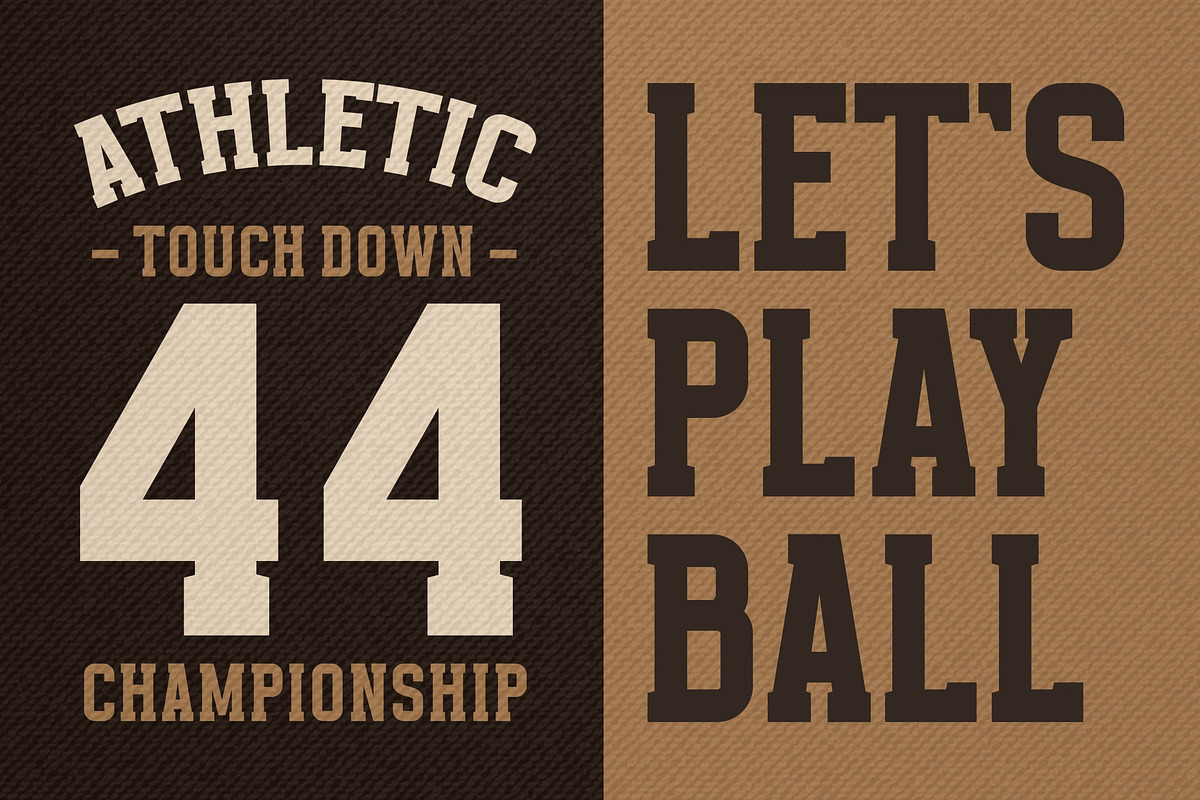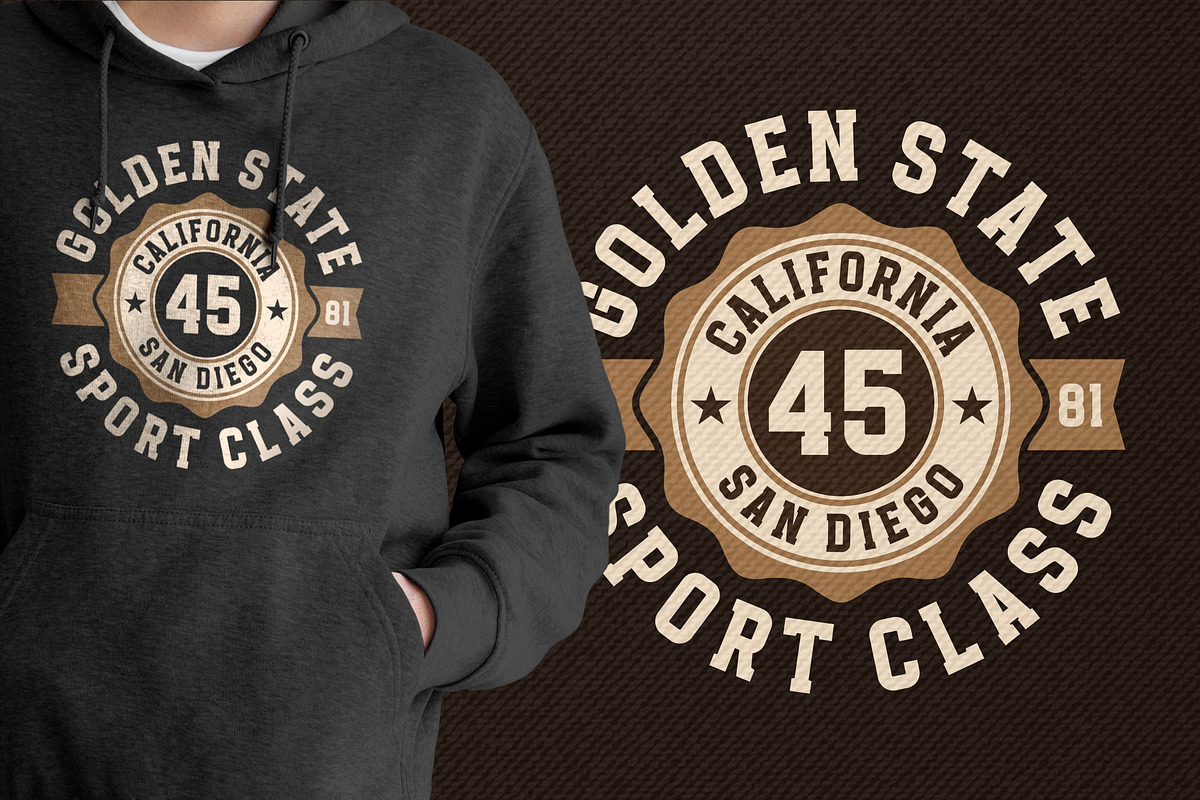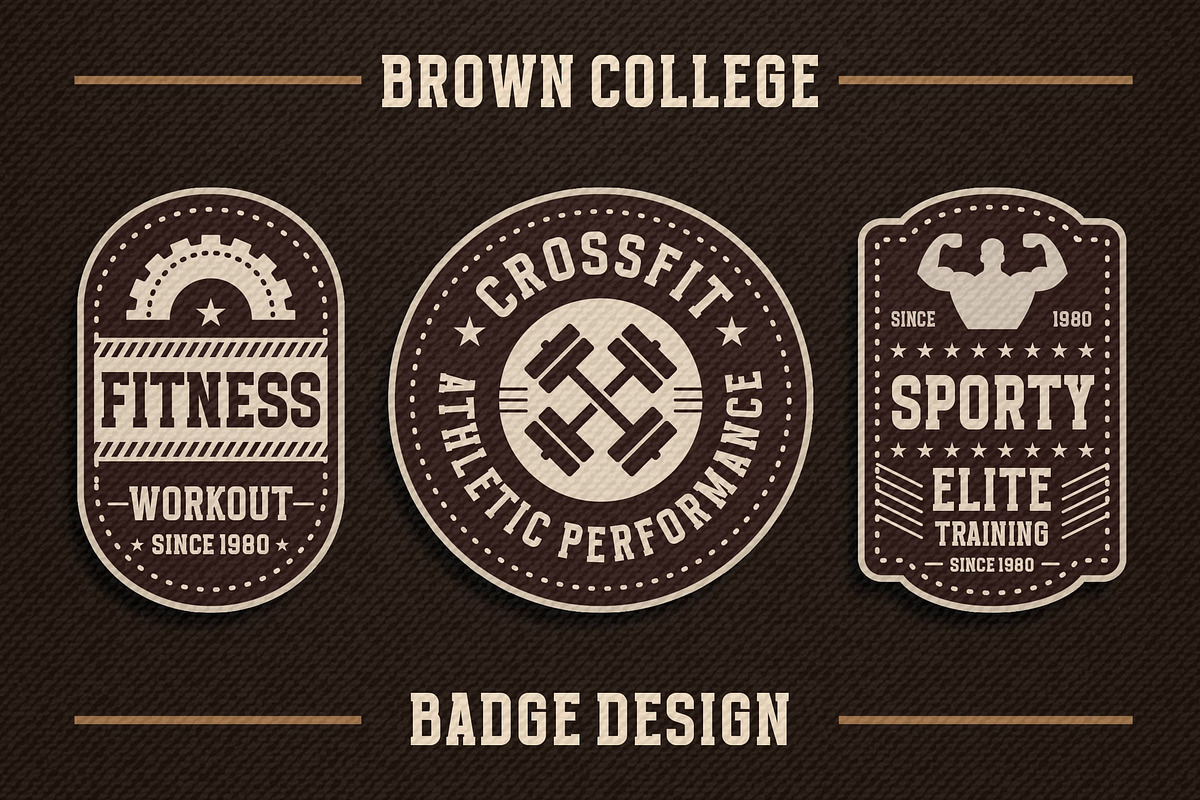
Brown College an authentic sport serif font, Inspiring from college typography. This font is perfect for a design that makes it more attractive and playful. made with a very good level of aesthetics making this font suitable for book cover, poster, packging, merchandise, logotype and much more.
- Uppercase
- Lowercase
- Number
- Punctuation
- Multilingual